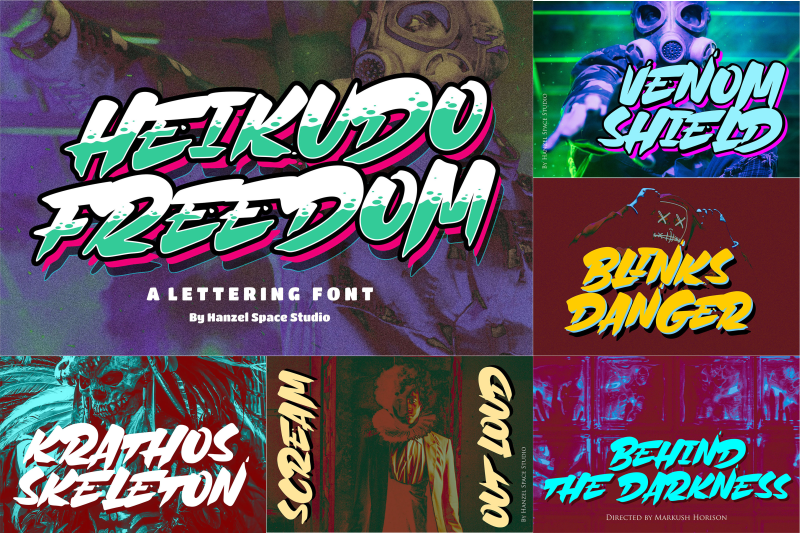
Heikudo Freedom – Lettering Font Font
About Heikudo Freedom – Lettering Font
Heikudo Freedom
A typeface that proves its usefulness over time. Letter strokes that produce unique characters on each glyph so that they display a natural impression. This font is very suitable for branding, film titles, book titles, quotes, product names and the business you want to create.